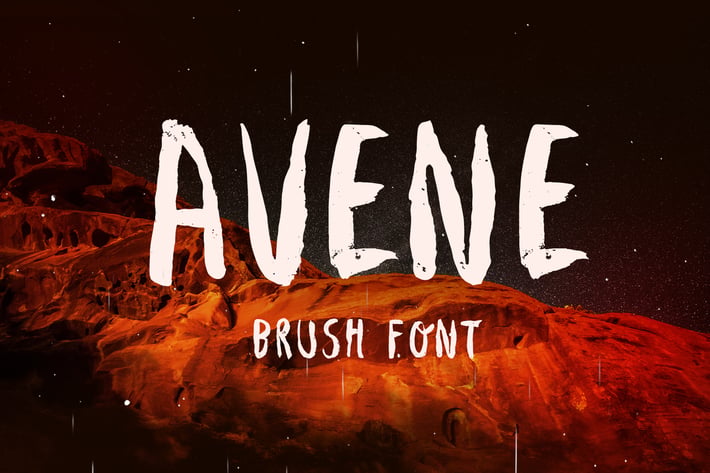
Avene Brush Font
Avene is a brush font made by hand with a thick brush.If you need a unique visual appeal, look no further. It features 94 characters and has all the basic glyphs. The download contains a .otf file and .woff. Brushed by Krisjanis Mezulis.